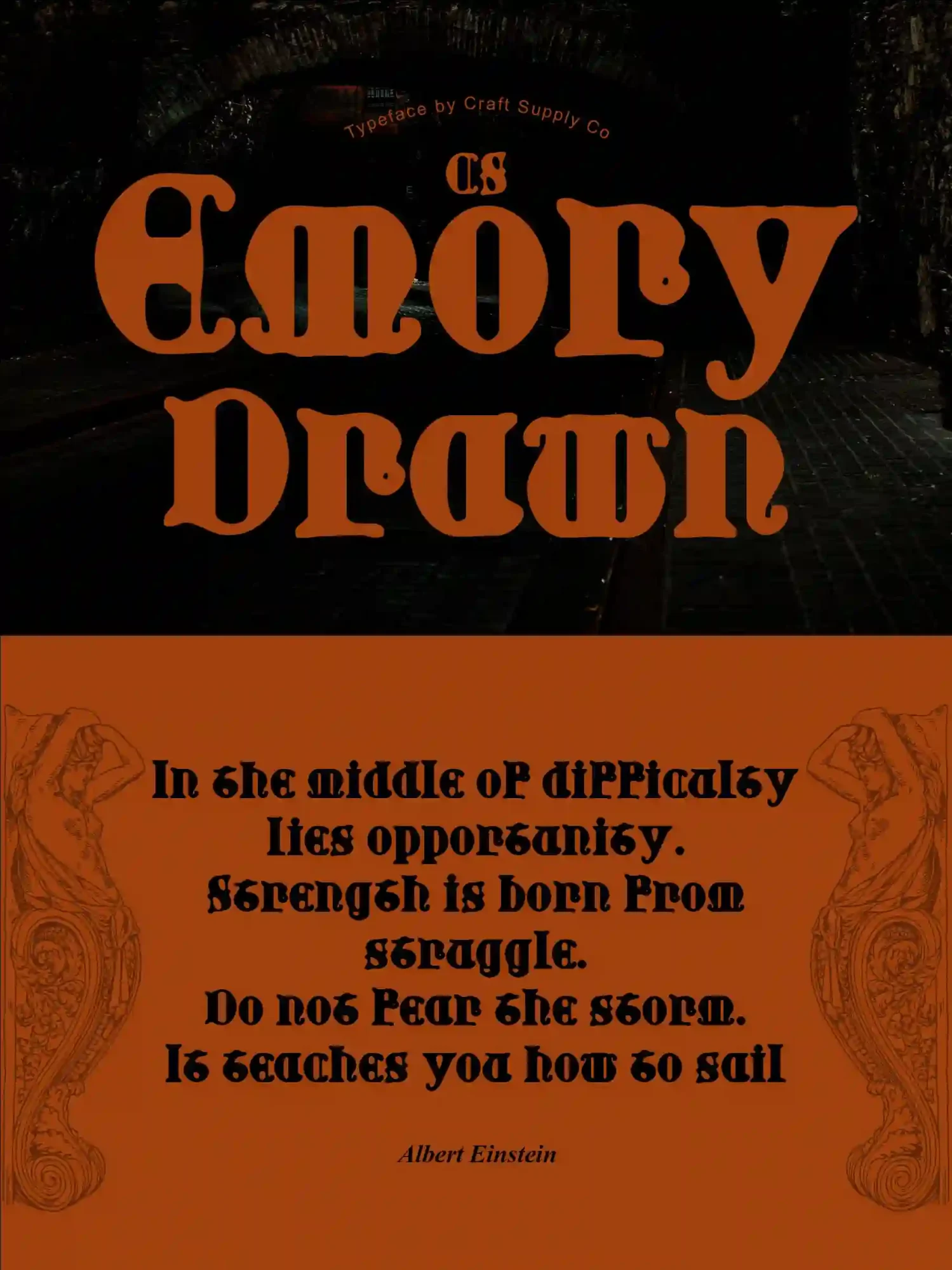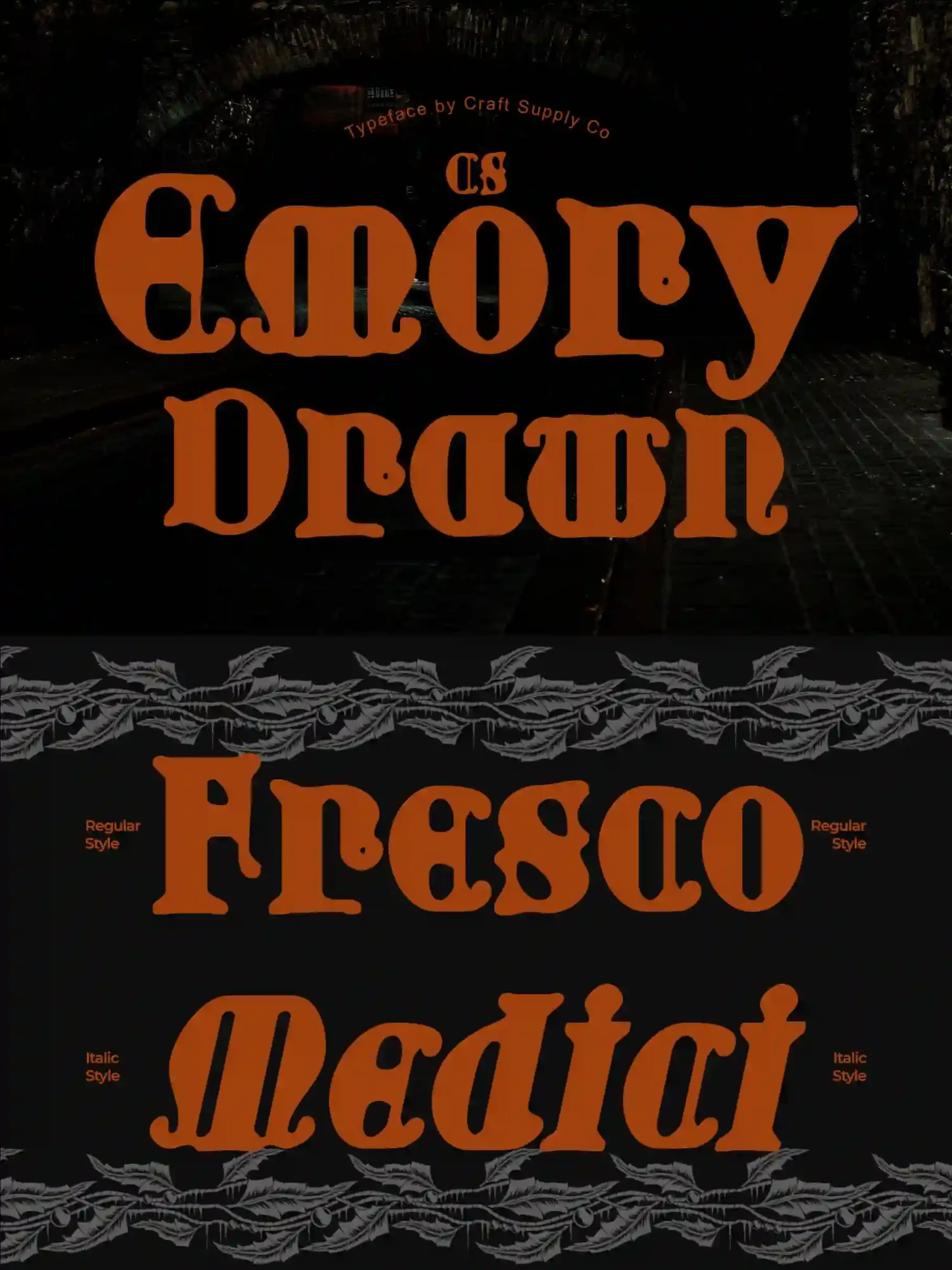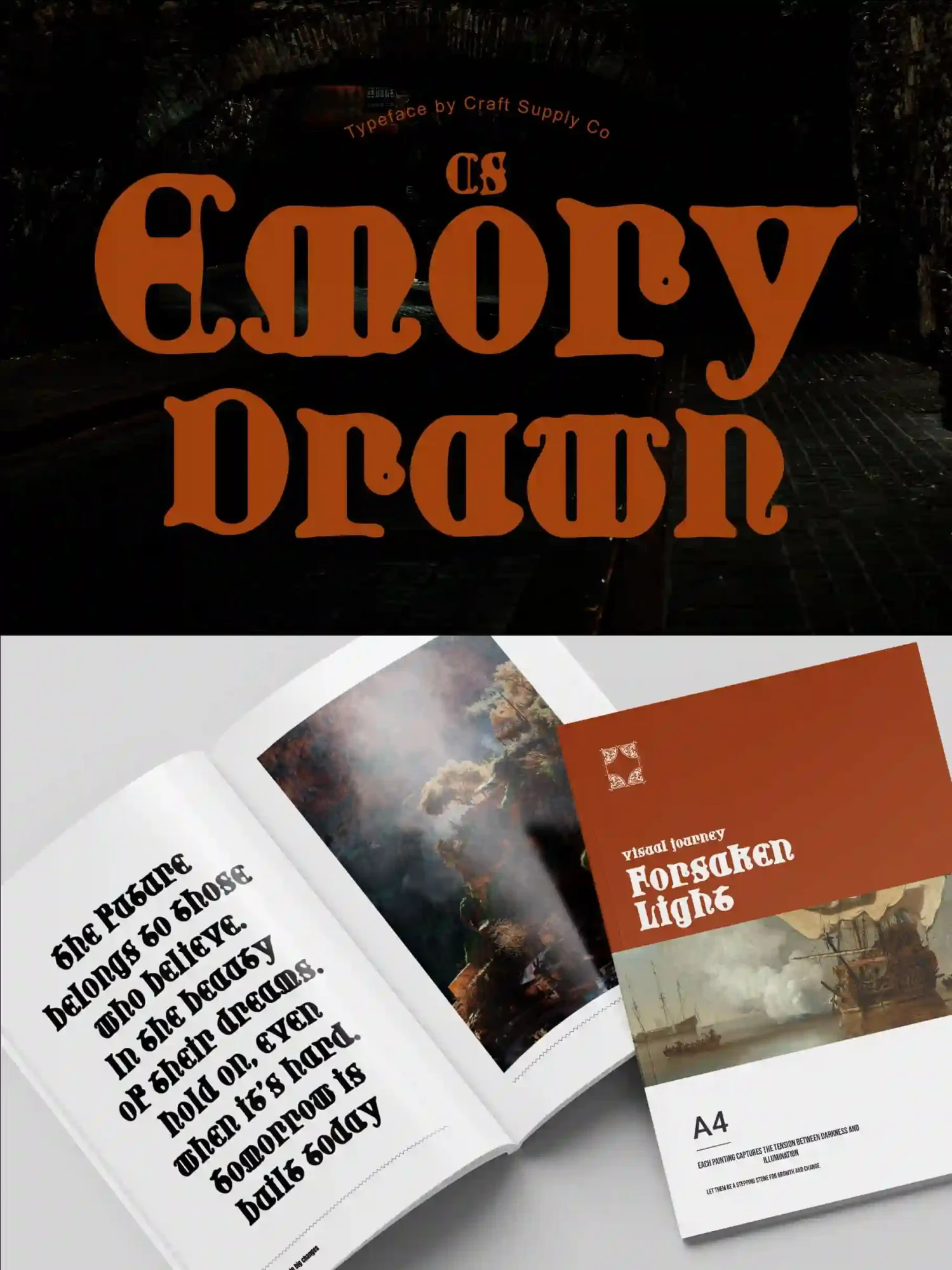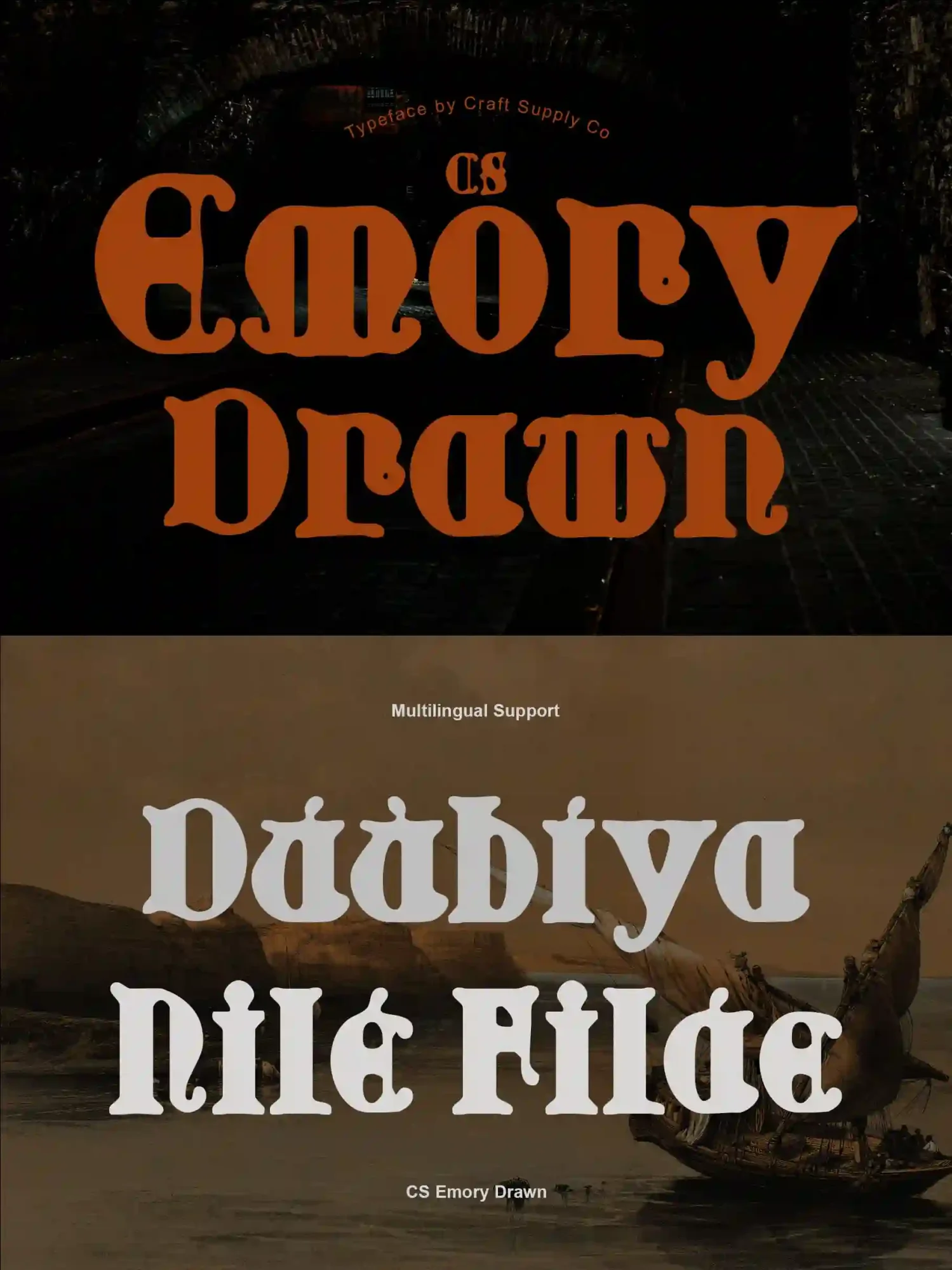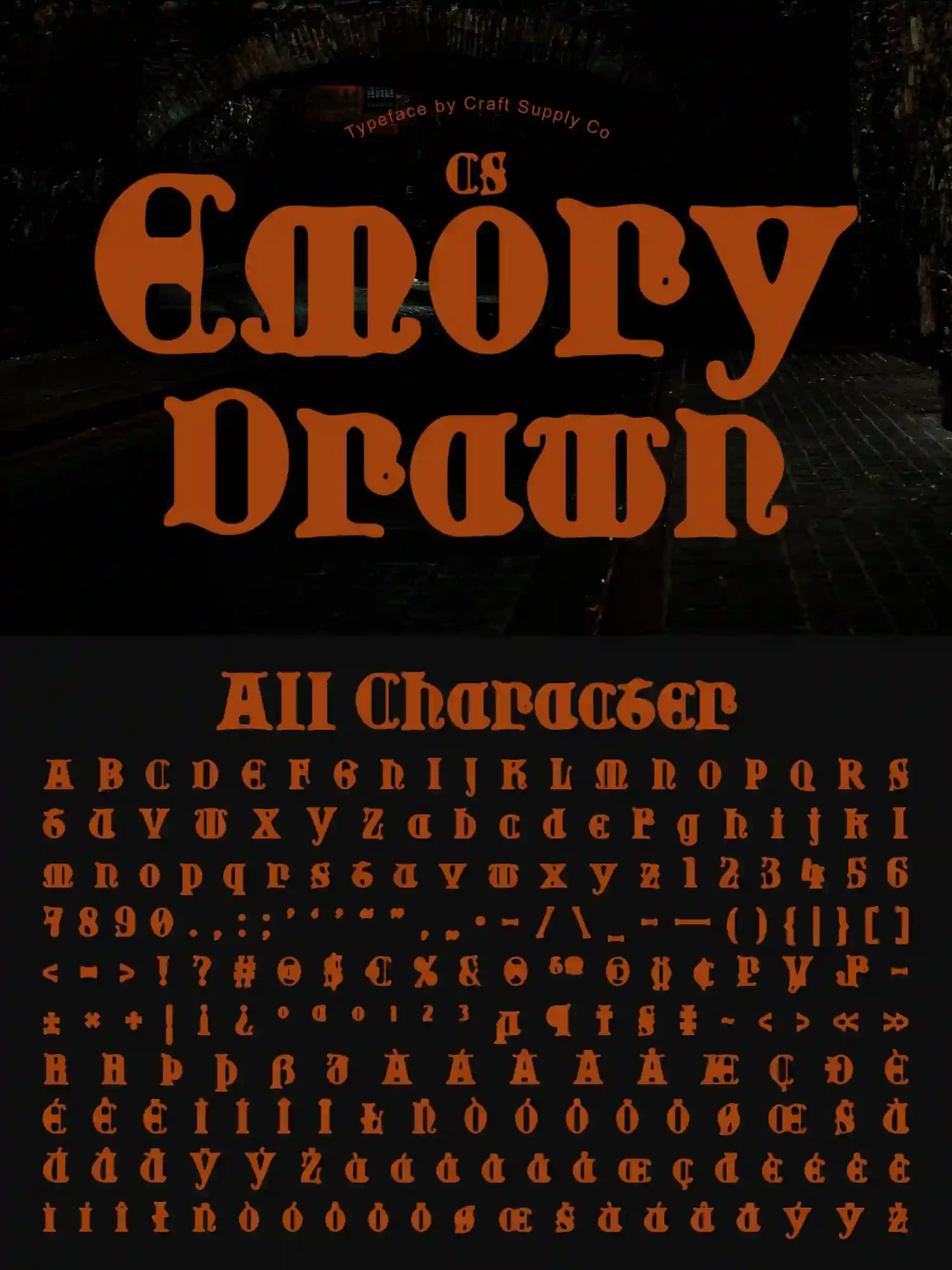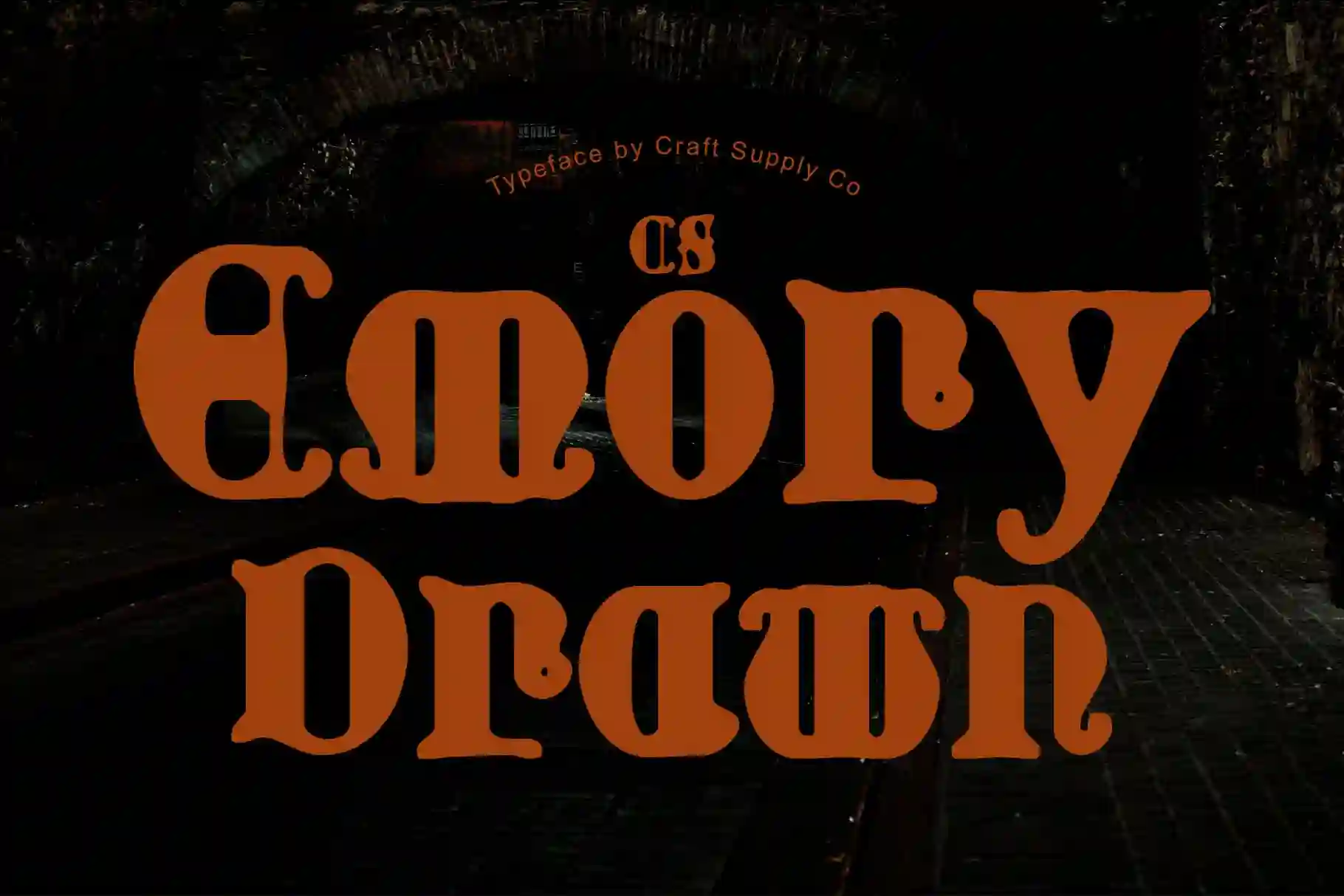
CS Emory Drawn – Gothic Hand-Drawn Font : Historical Display Font with Textured Character
Gothic Style with a Drawn Touch
CS Emory Drawn is a Gothic-inspired font that carries a distinctive hand-drawn style. Each letter is crafted with historic influence, creating a textured and authentic feel that resembles the character of old stamps and manuscripts.
Unique and Historical Feel
With its strong Gothic roots, CS Emory Drawn conveys a sense of tradition and heritage. The drawn texture enhances its individuality, making it perfect for projects that need to emphasize history, culture, or classic storytelling.